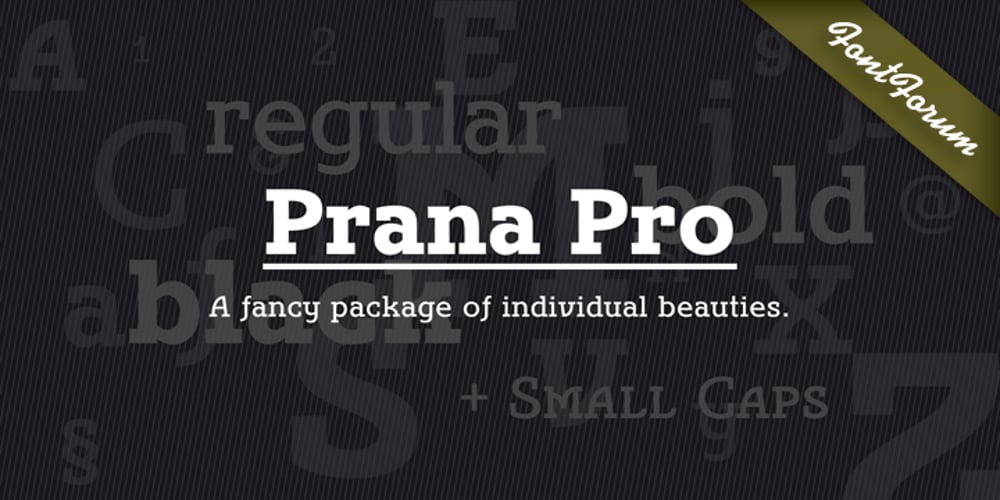
Prana Pro
Prana Pro font
Prana Pro Font Family was designed by Christoph Ulherr and published by URW Type Foundry. Prana Pro contains 3 styles and family package options. Prana Pro is a modern, young and fresh slab serif created by Christoph Ulherr during his studies with Prof. Gertrud Nolte at the faculty of design of the Hochschule Würzburg under the direction of Volker Schnebel, URW’s type director. Prana Pro is an excellent headline and display font while, at the same time, very well readable at small sizes. It can be used for any kind of publication including posters and book covers.